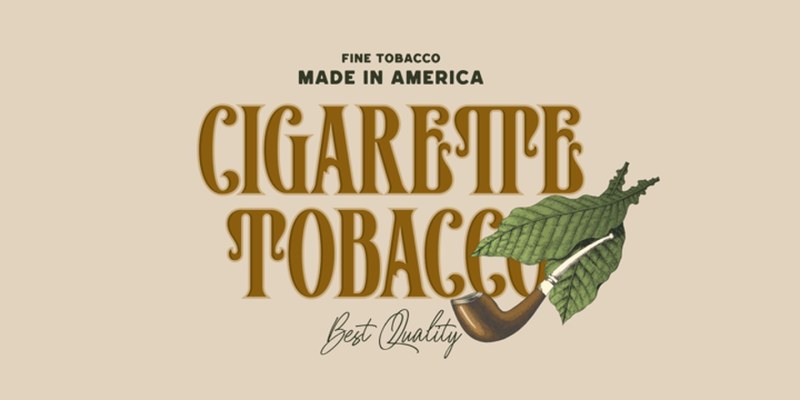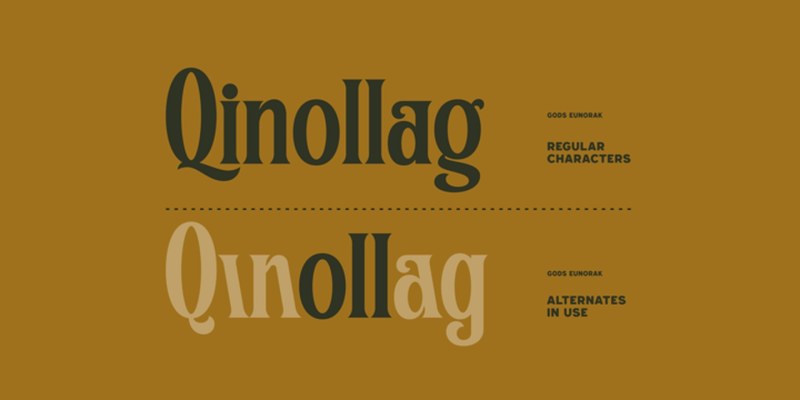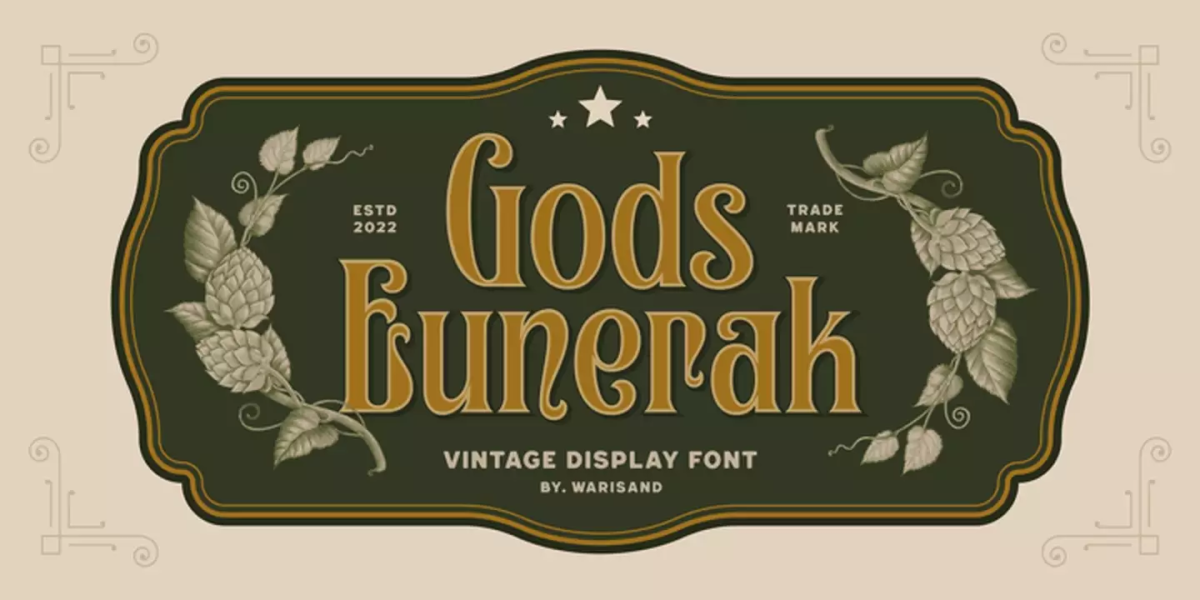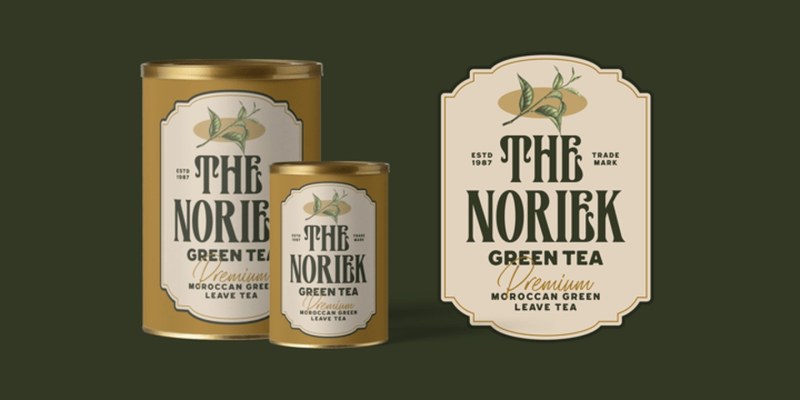
Gods Eunorak Font
Gods Eunorak is a Vintage Font inspired by beautiful vintage sign art and lettering. The font comes with unique alternate design characters to give your designs an elega…
Gods Eunorak is a Vintage Font inspired by beautiful vintage sign art and lettering. The font comes with unique alternate design characters to give your designs an elegant and artistic look. It is perfect for logo and packaging design, short phrases or headlines.
Where Gods Eunorak Font works best
Gods Eunorak Font is built for size: event posters, hero headlines and billboard-style layouts.
High contrast display type like Gods Eunorak Font reads instantly in thumbnails and motion graphics.
What is Gods Eunorak Font good for?